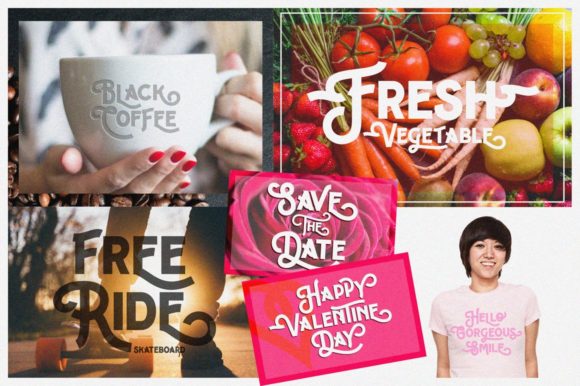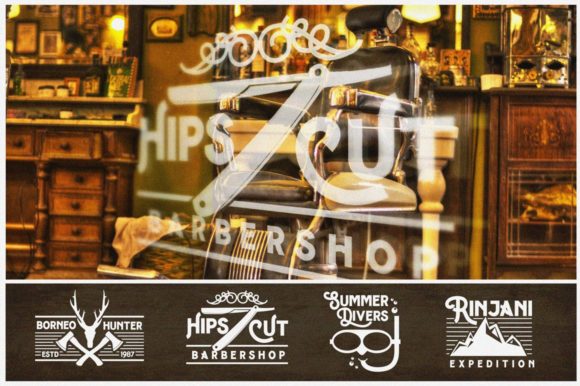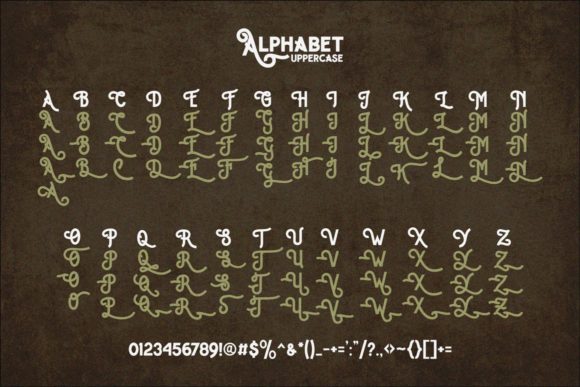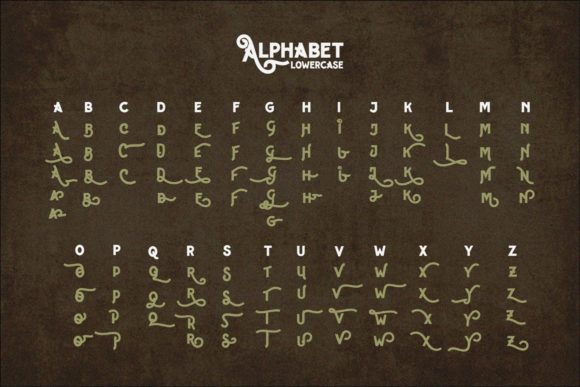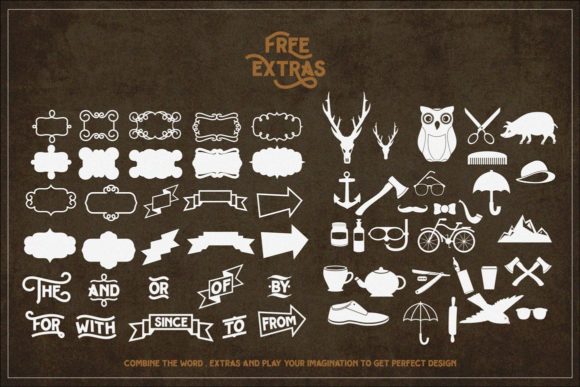
Introduction to Hipster Letter Font Font
Fonts play a crucial role in design, and the Hipster Letter Font font is a typeface that brings both character and versatility to any project. Whether you’re working on a branding project, a website, or a print design, the Hipster Letter Font font offers a unique style that can elevate your work.
Hipster Letter is a charming display font with smooth curves and playful swashes.
It will turn any design idea into a true standout .
Key Features of Hipster Letter Font Font
Why Choose Hipster Letter Font Font?
The Hipster Letter Font font is more than just a typeface – it’s a design tool that helps you communicate your message with style and clarity. Its unique character set and versatile design make it suitable for a wide range of applications, from elegant invitations to bold headlines.
With its carefully crafted letterforms and balanced proportions, the Hipster Letter Font font ensures readability and visual appeal across all mediums.
What makes Hipster Letter Font font special?
The Hipster Letter Font font stands out with its unique design, exceptional readability, and versatility across various design applications.